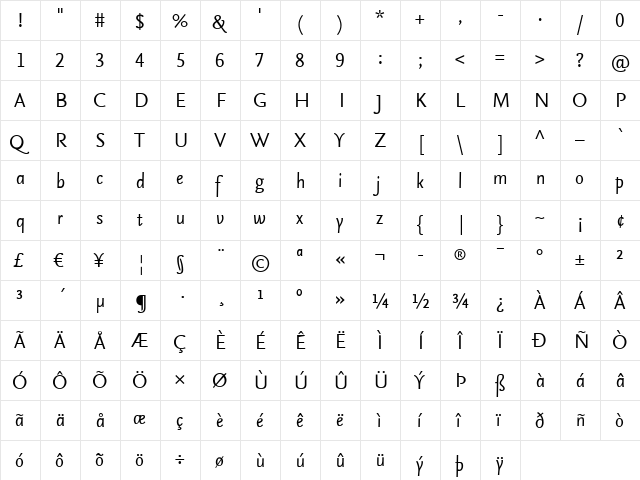
SeriaSansLf-Italic Italic
| Foundry | Martin Majoor, published by Fontshop International for the FontFont library |
Design Context for SeriaSansLf-Italic Typeface
SeriaSansLf-Italic takes a measured approach to typography — its balanced proportions and neutral character make it a reliable workhorse for both digital and print work. The slanted form adds forward momentum and visual energy.
Pro Tip: Try SeriaSansLf-Italic for annotation and caption copy alongside an upright companion — the contrast in angle creates a dynamic but ordered typographic system.